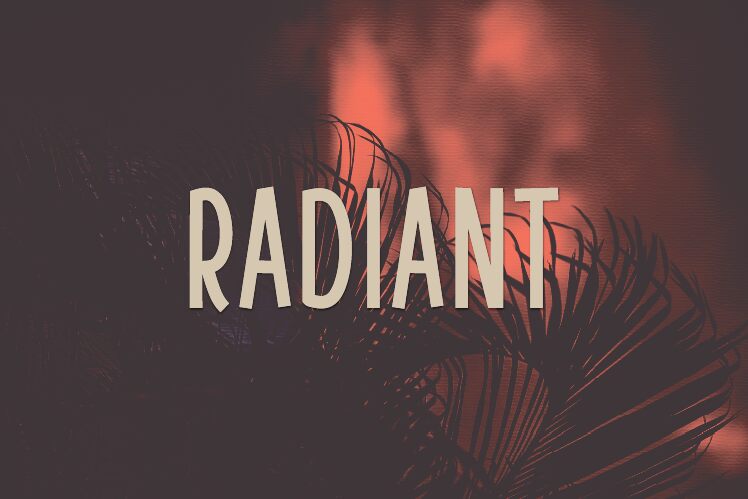
Radiant font family was developed with optimal legibility and user-friendliness at the top of the priority list. This Hanna Bie creation is a free font inspired by retro styles. Using some of the geometric design principles of modernist fonts, this typeface has a clean and minimalist approach. Its original look is spotted in the tiny details of each letter, this aspect slightly taking away from the usual mechanical approach in regular geometric typefaces.
Radiant integrates seamlessly into the branding of formal and sophisticated businesses such as law firms, consultancies, and universities. Art-deco-influenced letters are also subdued by the designer for use in a number of different settings. Find the best way to integrate this font within packaging designs, magazine covers, flyers, posters, social media, and more.